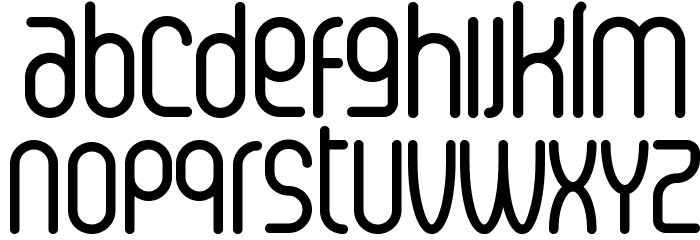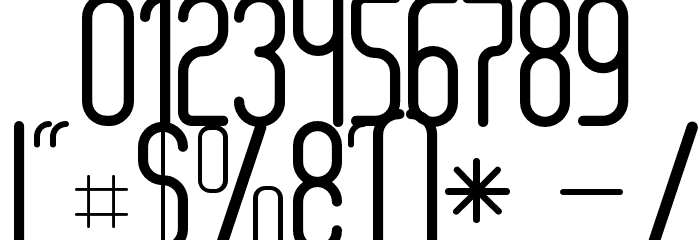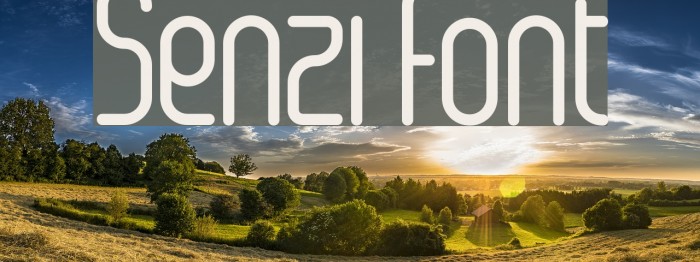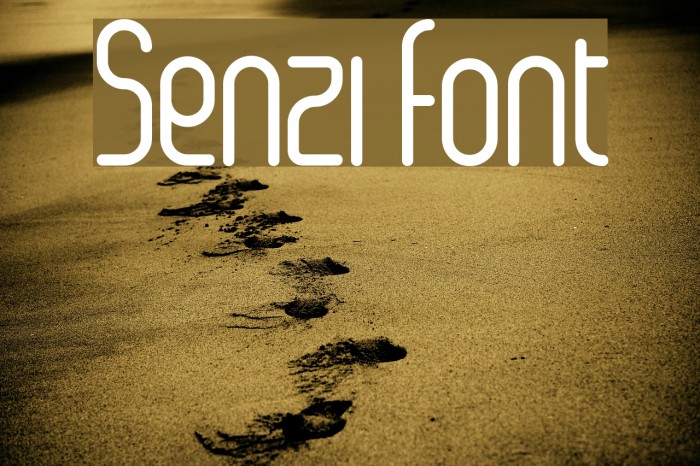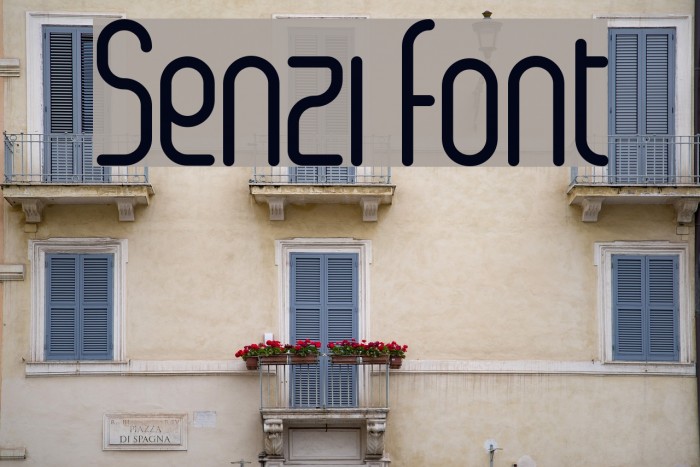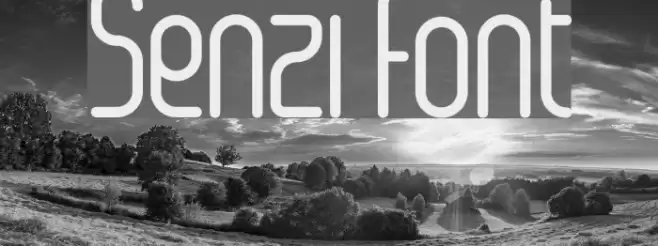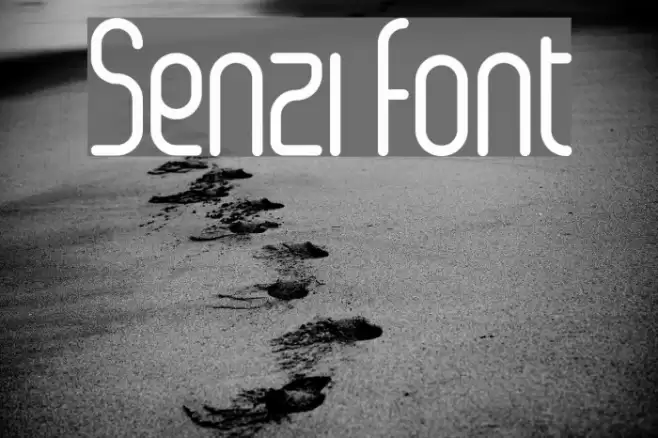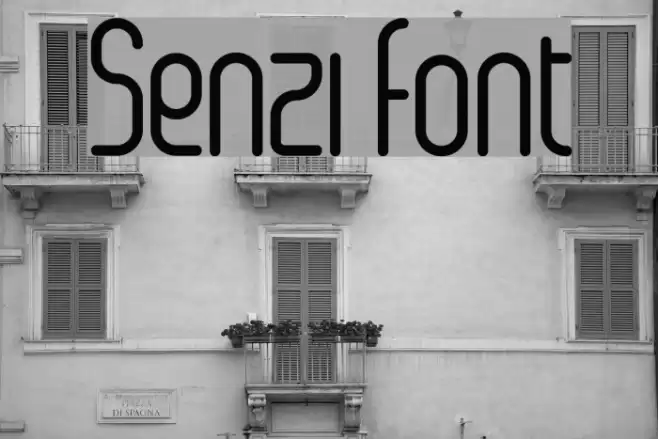
Senzi Font
This font features a modern and geometric design with rounded edges and consistent stroke width, giving it a sleek and contemporary appearance. The characters are tall and narrow, creating a condensed look that is both stylish and functional. The uppercase and lowercase letters maintain a uniform height, contributing to a clean and organized aesthetic. The numerals and special characters are designed with the same geometric precision, ensuring visual harmony across all elements. This font's minimalistic style makes it versatile for various design applications.
A modern, geometric font with rounded edges and consistent stroke width.
- Proposed Projects: Ideal for branding, advertising, digital interfaces, and editorial design.
- Use Case: Headlines, Logos, Digital Interfaces